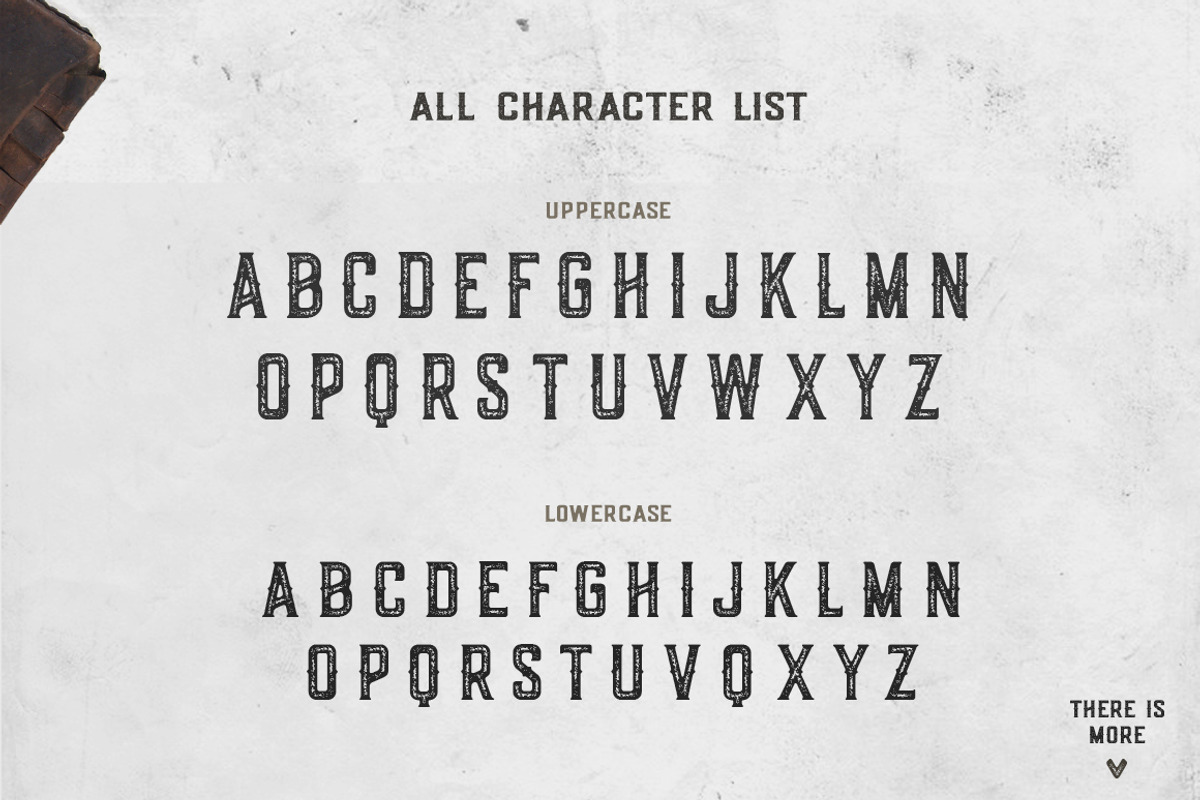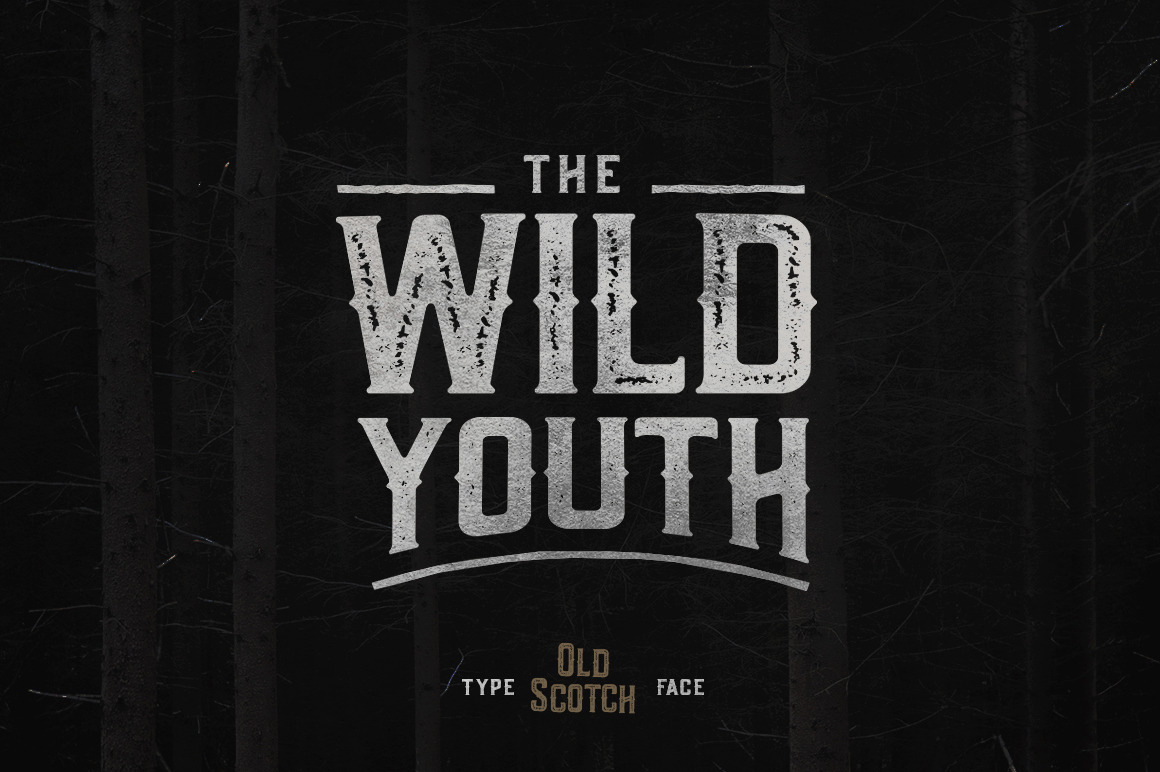
Old Scotch Typeface - 7 Styles
Introducing Old Scotch Typeface - 7 Font Styles
Old Scotch is a highly detailed vintage yet modern font inspired from beer and brewery vintage style. The font have smooth edges to simulate vintage printing.
Come with 7 font styles : Clean, Regular, Regular Shadow, Modern, Rusty, Vintage, Vintage Shadow to be paired together for an great vintage and classic look. Made for those who like aesthetics in vintage and classic design
Suitable and applicable for any material graphic designs, especially vintage designs.
- Punctuation & Symbol
- International Language
- Special Character